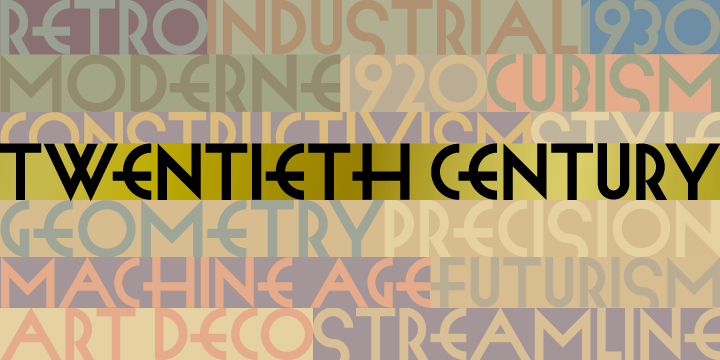
Twentieth Century
Twentieth Century was designed for the cover of a collection of 20th Century French Poetry and was drawn with the intention of using only pure geometric shapes. It is the distillation of a broad variety of styles loosely known as Art Deco but, also categorized under such terms as Moderne, Streamline, Machine Age, Futurist, 70s Art Deco, Memphis among others.
If there were one source in particular that I would cite as my inspiration, however, it would definitely be the work of Frank Lloyd Wright. I mean, look at the ?W? for cryin' out loud!